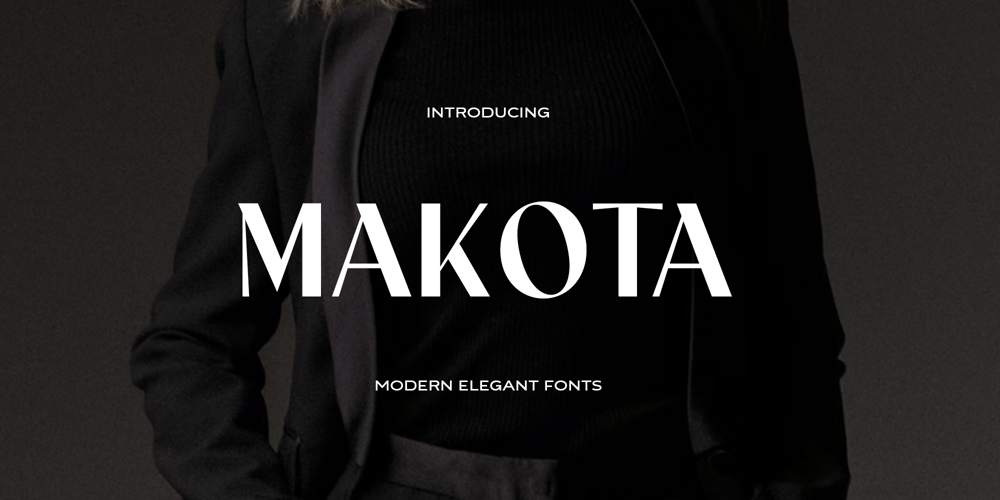
Makota Font Family was designed by abdul artega and published by Yukita Creative. Makota contains 1 styles and family package options. The modern font Makota is perfect for use in luxury-related design projects. Its tall elegant typeface makes it ideal for branding and advertising, while its high legibility makes it perfect for use on websites, advertisements and other types of communication.